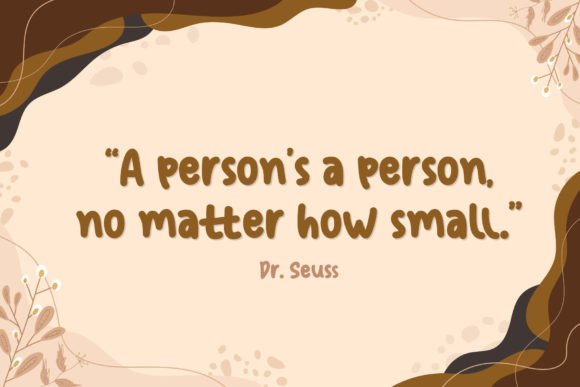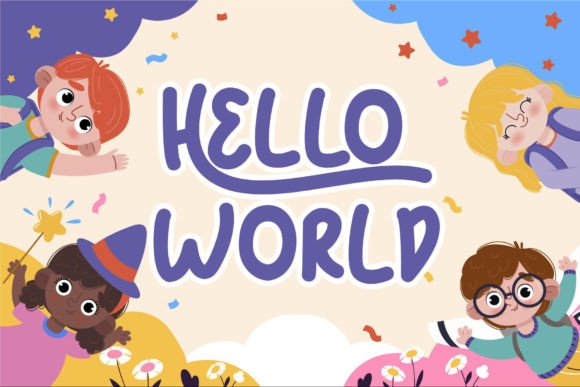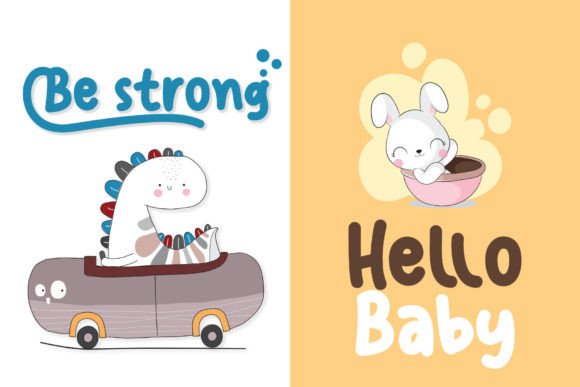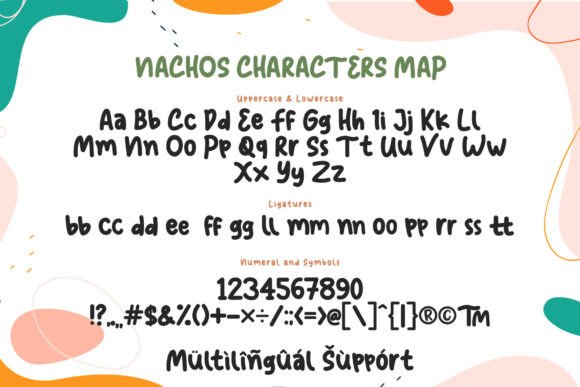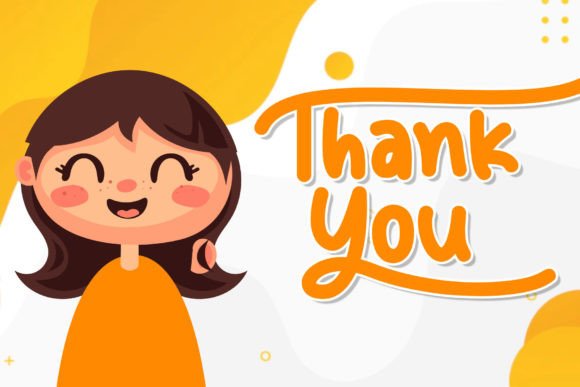
Introduction to Nachos Font
Have you ever stared at a blank canvas, desperately searching for the perfect font to bring your creative project to life? We’ve all been there. The frustration of scrolling through endless font options, only to settle for something that’s just ‘fine’ instead of truly memorable. But what if I told you there’s a font that can change all that? Enter the Nachos Font, a playful handwritten monoline font that’s about to become your new best friend.
With its charming alternates and ligatures, the Nachos Font is the perfect addition to any design project that requires a fun and whimsical touch. Whether you’re working on a branding campaign, packaging design, or social media graphics, this versatile font is sure to elevate your work to the next level. And the best part? It’s available for free download, making it an invaluable design resource for creatives of all levels.
Key Features of Nachos Font
- High-quality font design for creative projects, perfect for adding a fun and playful touch.
- Includes multiple font styles, including bold, italic, and regular, to cater to different design needs.
- Designed with high resolution, ensuring crisp and clear display on various devices and screens.
- Part of a larger collection of unique and creative fonts, perfect for adding a personal touch to any design project.
Honest Review: Nachos Font
I recently had the chance to work with the Nachos Font for a creative project, and I have to say, it was a pleasant experience. This font is a great addition to any designer’s toolkit, especially when looking for a free download to add some flair to a design.
What works well:✨
- High-quality typography: The Nachos Font has a unique, hand-drawn feel that’s perfect for creative projects.
- Transparent background: This makes it easy to use the font over any background image or color.
Limitations:⚠️
- Limited font styles: While the font is great, there aren’t many different styles to choose from.
- May not be suitable for body text: Due to its unique design, the Nachos Font may not be the best choice for large blocks of body text.
Overall, I’m impressed with the Nachos Font. It’s a great design resource for adding a personal touch to your creative projects. Just be aware of its limitations, and use it for the right type of project. I’d definitely recommend it as a free download for any designer looking to add some flair to their work.
Tips for Getting the Most Out of Nachos Font
Use Nachos Font on a transparent background to create a unique and eye-catching design. Experiment with different font sizes and styles to add depth and visual interest to your project. This free download is a valuable design resource for any creative project.
Nachos Font is perfect for creating attention-grabbing headlines, social media graphics, and promotional materials. Its high-quality design makes it an ideal choice for any creative project, from business cards to brochures.